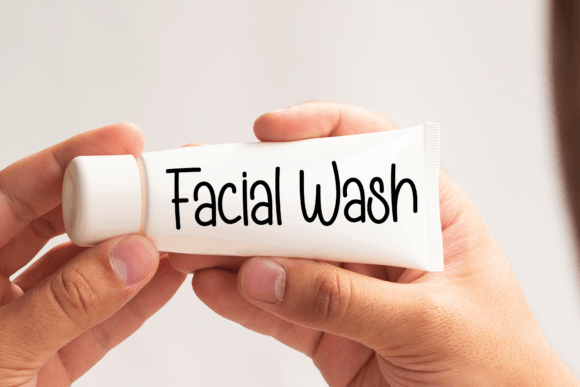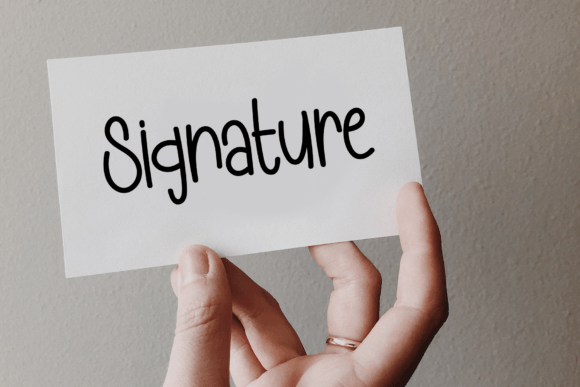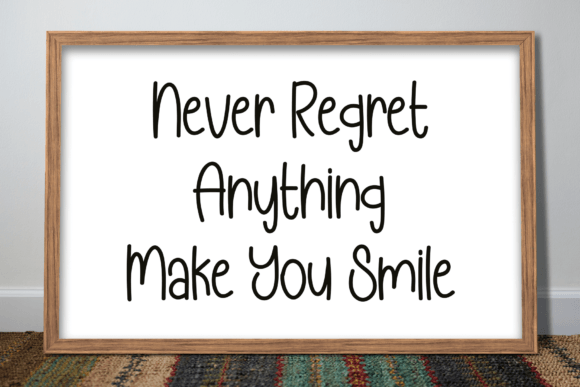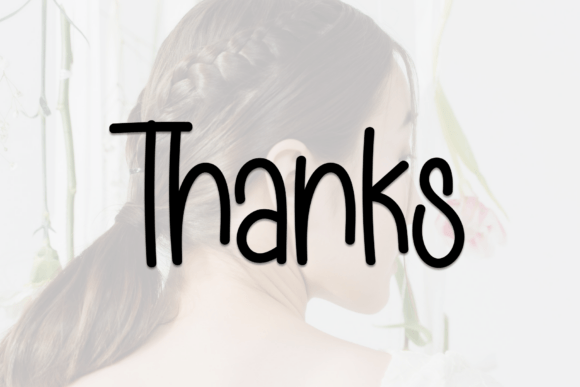
Introducing Hairstyle Font: The Perfect Blend of Luxury and Casual
Are you a designer or crafter looking for a unique and versatile font to elevate your brand or project? Look no further than Hairstyle Font, a handwritten font that exudes a relaxed and sporty feel. With its marker-drawn aesthetic, Hairstyle Font is perfect for adding a touch of luxury and elegance to your designs while still maintaining a casual vibe.
What is Hairstyle Font?
Hairstyle Font is a carefully crafted handwritten font that mimics the look of marker-drawn text. Its relaxed and sporty feel makes it an excellent choice for a wide range of design applications, from branding and logos to wedding supplies, greeting cards, and marketing promotions. Whether you’re looking to create a luxurious and elegant design or a more casual and laid-back one, Hairstyle Font is the perfect choice.
Key Features of Hairstyle Font
- Marker-drawn aesthetic: Hairstyle Font has a unique, hand-drawn look that gives it a personal and human touch.
- Relaxed and sporty feel: The font’s casual vibe makes it perfect for designs that require a laid-back and approachable feel.
- Luxurious and elegant: Despite its casual nature, Hairstyle Font still conveys a sense of luxury and sophistication, making it perfect for high-end designs.
- Versatile: Hairstyle Font can be used for a wide range of design applications, from branding and logos to wedding supplies, greeting cards, and marketing promotions.
Use Cases for Hairstyle Font
Hairstyle Font is an incredibly versatile font that can be used in a variety of design applications. Here are some use cases to get you started:
- Branding and logos: Use Hairstyle Font to create a unique and memorable brand identity that stands out from the crowd.
- Wedding supplies: Add a touch of elegance and sophistication to your wedding designs, from invitations to stationery.
- Greeting cards: Create beautiful and heartfelt greeting cards that are sure to impress.
- Fashion and lookbooks: Use Hairstyle Font to add a touch of luxury and glamour to your fashion designs and lookbooks.
- Marketing promotions: Create eye-catching marketing materials that grab attention and drive results.
Why Choose Hairstyle Font?
With so many fonts to choose from, why should you choose Hairstyle Font? Here are just a few reasons:
- Unique and distinctive: Hairstyle Font has a one-of-a-kind look that will set your designs apart from the crowd.
- Easy to read: Despite its marker-drawn aesthetic, Hairstyle Font is still easy to read and understand.
- High-quality: Hairstyle Font is a high-quality font that is designed to deliver exceptional results.